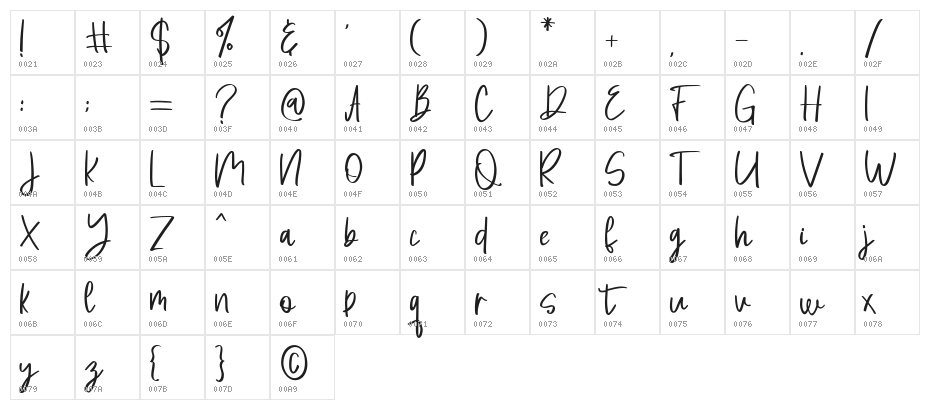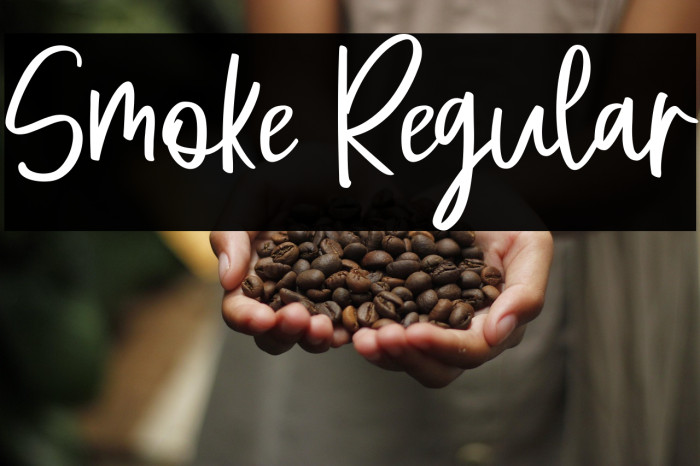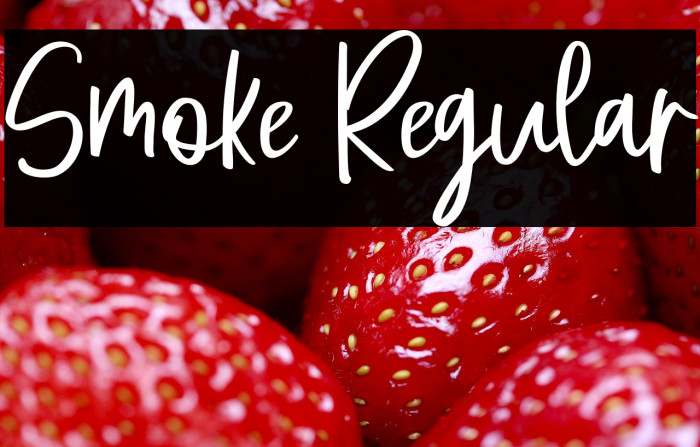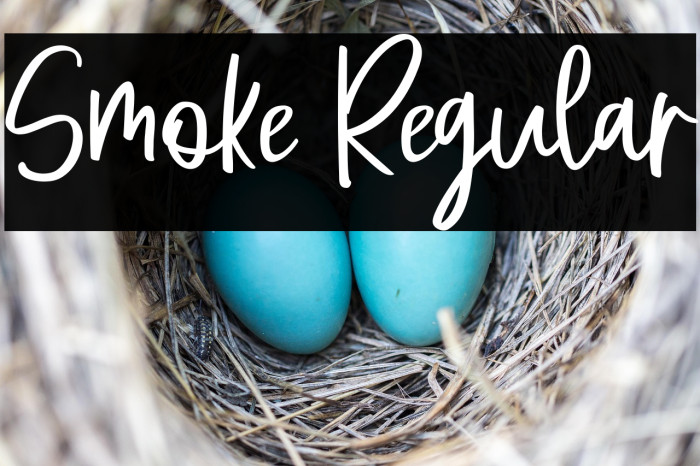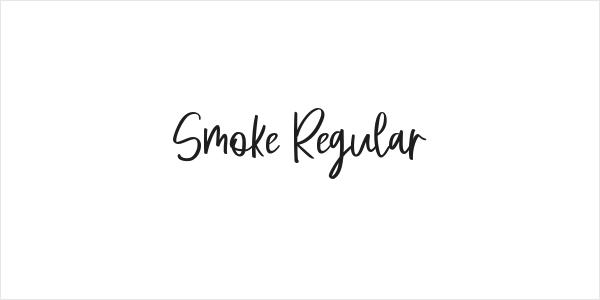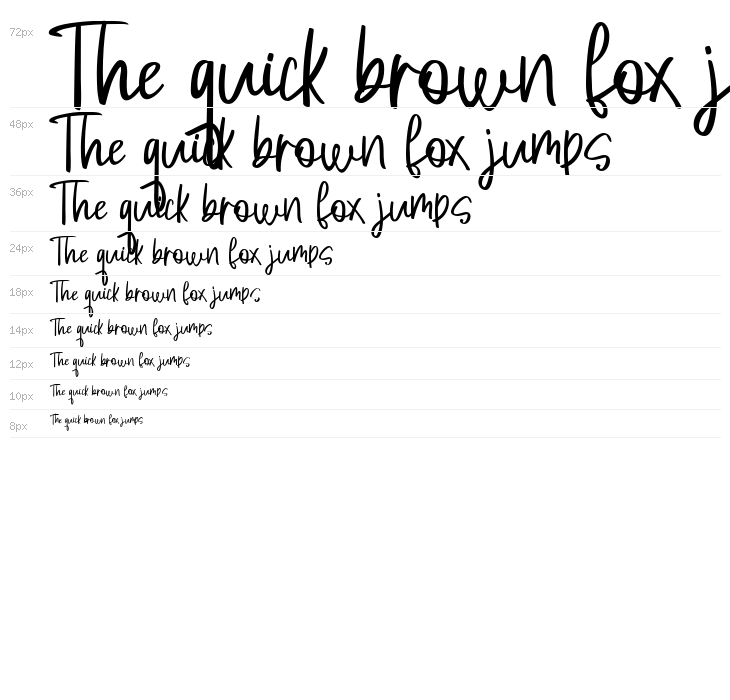
Smoke Regular Font
Smoke Regular Description
This font features a dynamic and expressive handwritten style, characterized by its fluid and flowing letterforms. The strokes are bold and confident, with a slight slant that adds a sense of movement and energy. The uppercase and lowercase letters maintain a consistent style, with playful loops and curves that give the font a lively personality. The numbers and special characters are crafted with the same attention to detail, ensuring a cohesive look across all elements. This font is ideal for projects that require a personal touch, such as invitations, greeting cards, and creative branding.
| Proposed Projects | Ideal for invitations, greeting cards, creative branding, and personal projects. |